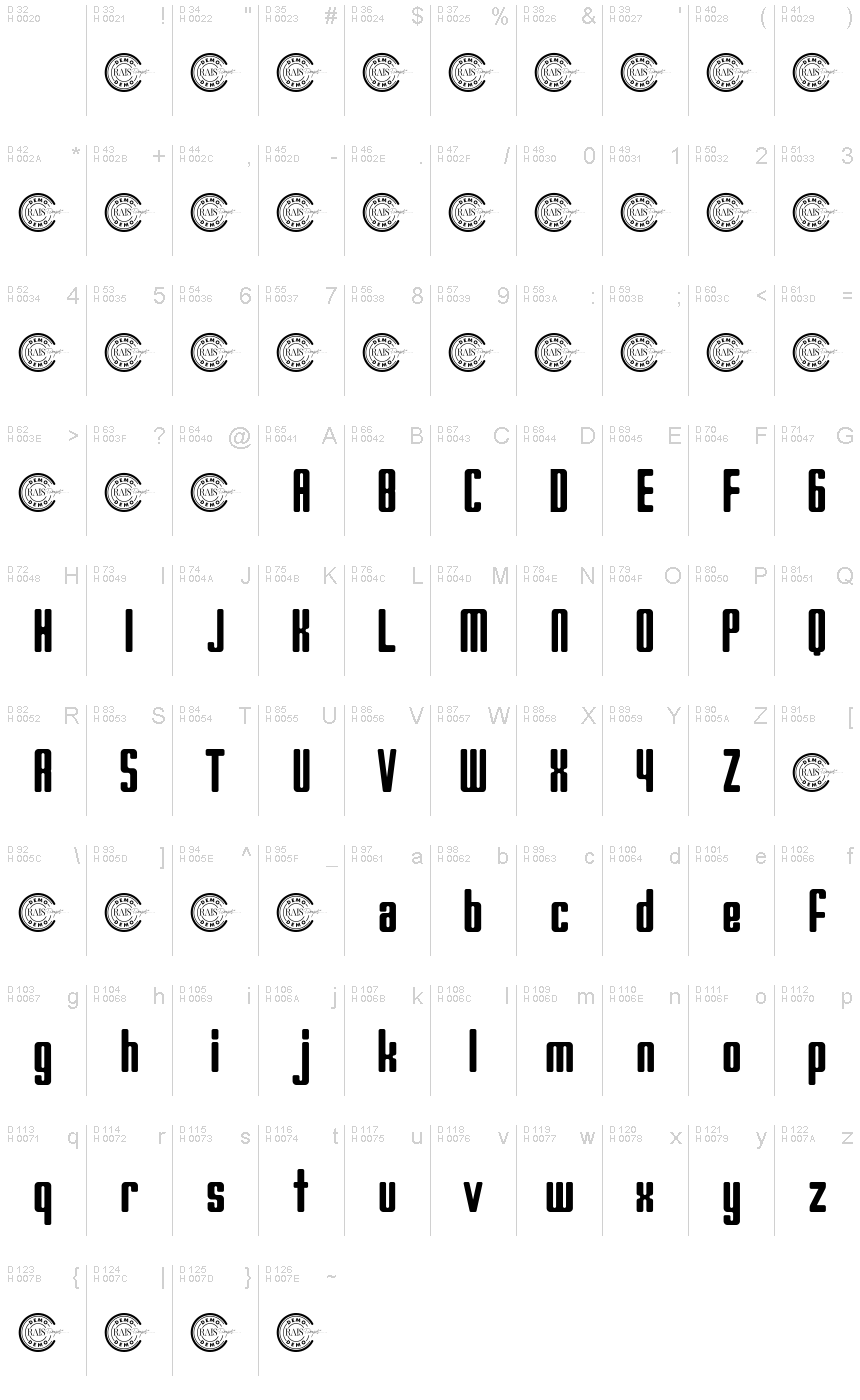
Panoramatic font is an extraordinary sans serif font that emphasizes a strong and distinctive character. It's a clean, elegant, expressive typeface with a tight kerning.
It's perfect for branding projects, product packaging, brochures and any other projects you might think of! Pairs well with modern sans serif fonts but isn't so picky when it comes to selecting one such as 'Bajorans' or this one from earlier: Vulkkun.